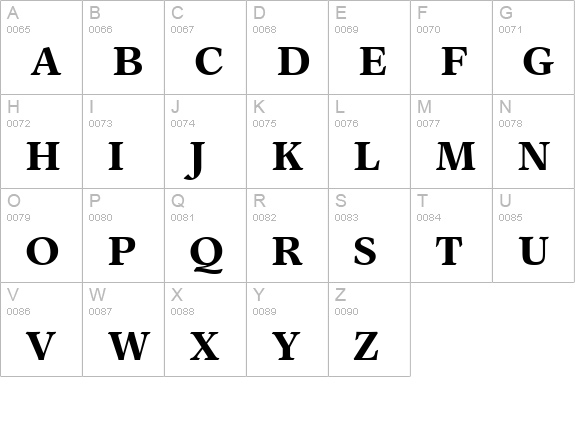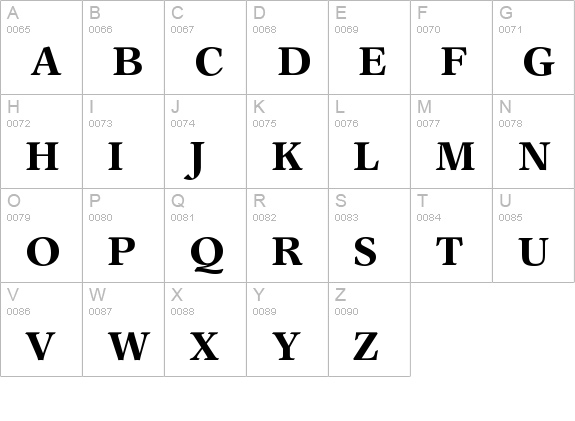
Axiomatic Black SSi Extra Bold is a maximum-weight, dramatic variant in the Axiomatic typeface family \xE2\x80\x94 well suited to maximum-impact headlines, posters, and packaging.
Axiomatic Black SSi Extra Bold font is a striking and powerful typeface that exudes confidence and modernity. Its bold and angular design makes it perfect for making a bold statement in your projects. The font features sharp edges and a commanding presence that demands attention. What's even better is that Axiomatic Black SSi Extra Bold font is available for free download at FontsMarket.com. This means you can easily incorporate this impactful font into your designs without any additional cost. Whether you're looking to create eye-catching headlines, posters, or branding materials, Axiomatic Black SSi Extra Bold font is sure to make a lasting impression. Download it today and unleash the power of this dynamic typeface in your projects.